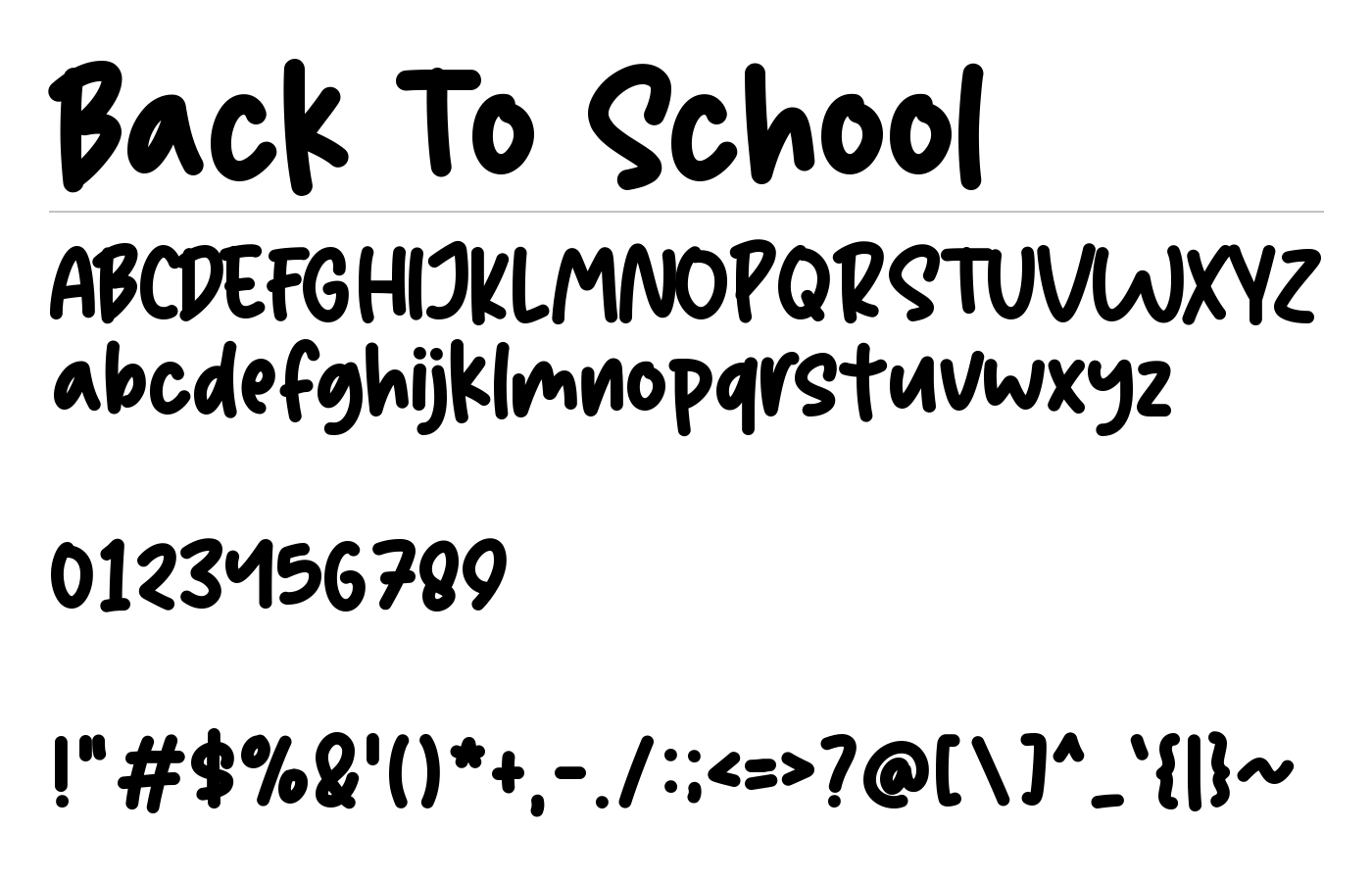
Back To School is a fun and casual handwritten sans serif font with a bold weight and rounded, playful letterforms that evoke a friendly and approachable vibe. Its uneven strokes and informal style make it perfect for designs aimed at children, education themes, or any project that wants to communicate warmth and creativity. This font works well for headlines, posters, and packaging where a personal, lively touch is desired.
Back To School Font
About Back To School Font